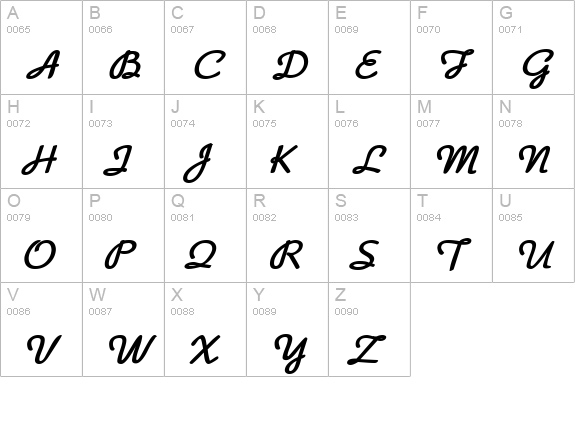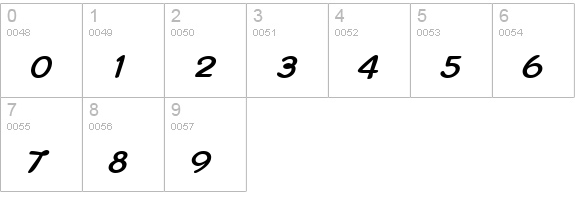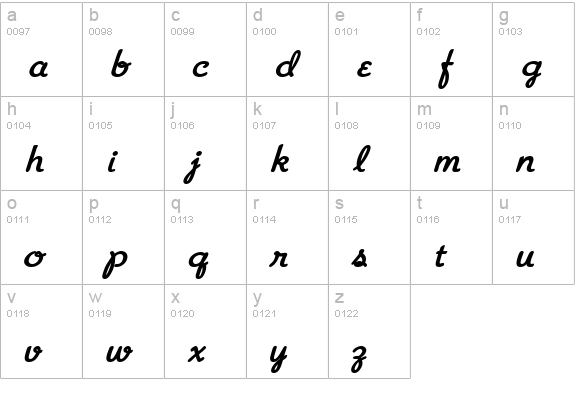
Saturdays... Font Details
Introducing Saturdays, a striking and versatile font that embodies the essence of freedom and creativity. With its bold and alluring design, Saturdays captures the spirit of the weekend, where endless possibilities and boundless adventures await. This font is the perfect companion for those looking to make a statement with their designs. Its clean and modern lines effortlessly convey a sense of sophistication and confidence, making it ideal for a wide range of projects, from branding and advertising to social media graphics and website design. Saturdays is freely available to download at FontsMarket.com, ensuring that everyone can access and enjoy the endless creative possibilities this font has to offer. Whether you're a professional designer or simply a creative enthusiast, Saturdays empowers you to bring your ideas to life with effortless style and flair. With its extensive character set, Saturdays offers multiple weights and styles, allowing you to truly customize and personalize your designs. From sleek and elegant to bold and impactful, this font offers a variety of options to suit any project or aesthetic. Embrace the freedom and endless creativity that Saturdays brings to your designs. Download it today, completely free, at FontsMarket.com, and unlock a world of possibilities for your next creative endeavor.